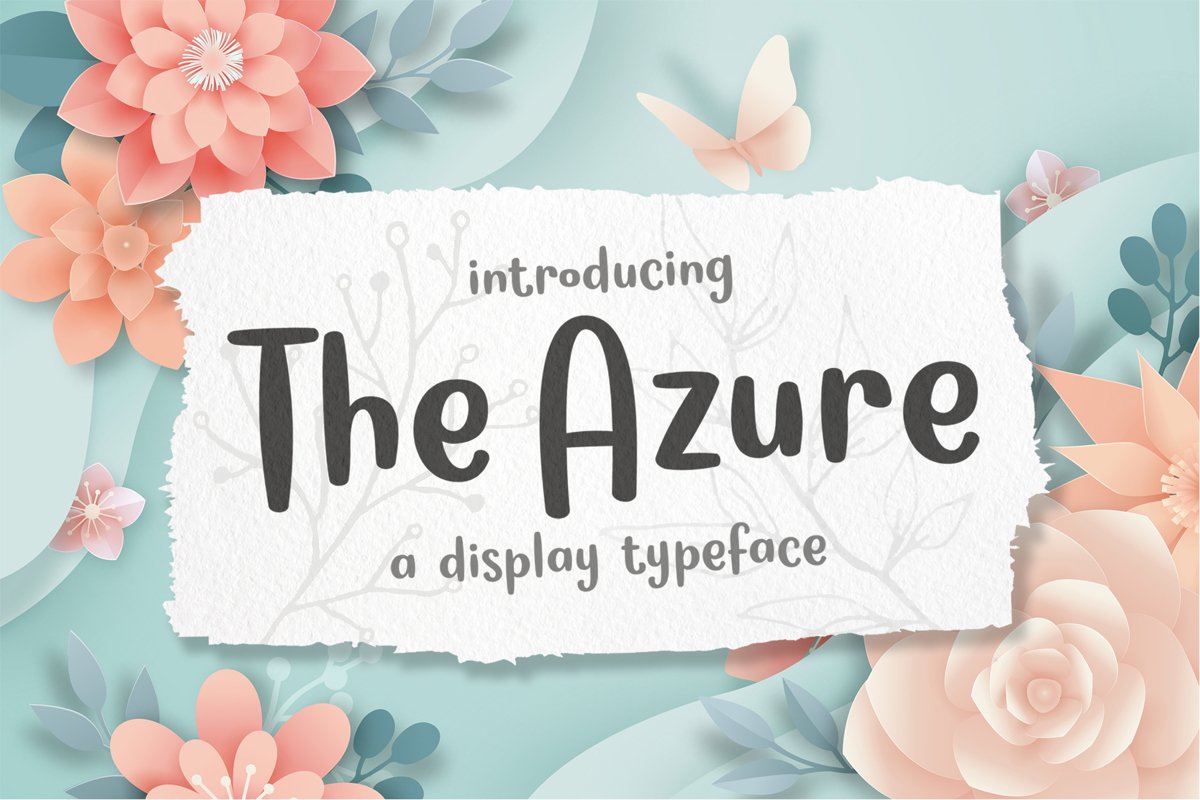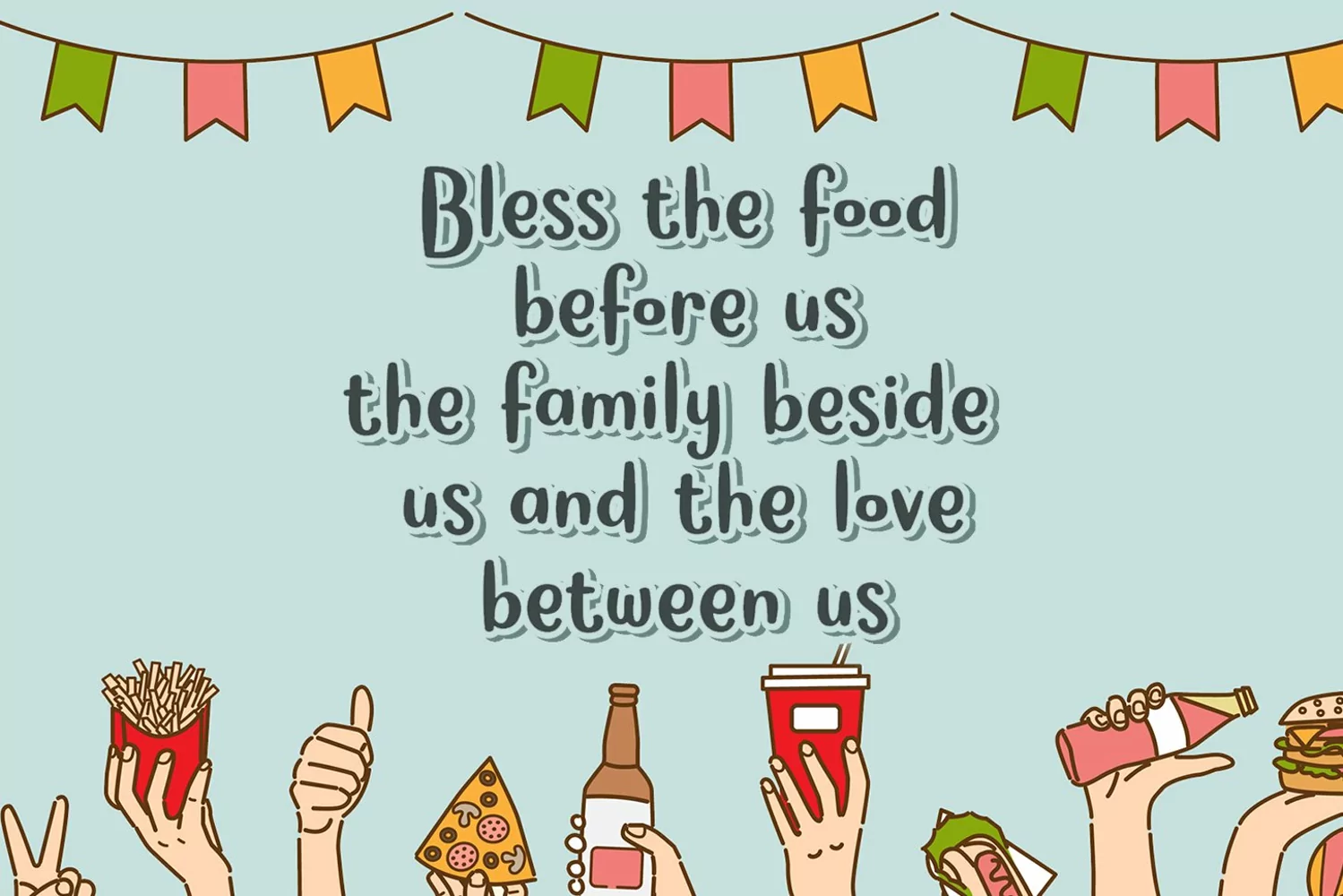
Azure is a display typeface. Perfect for display, quotes, logo, logotype, tittle, headline, business card, packaging, merchandise, craft needs, and many more.